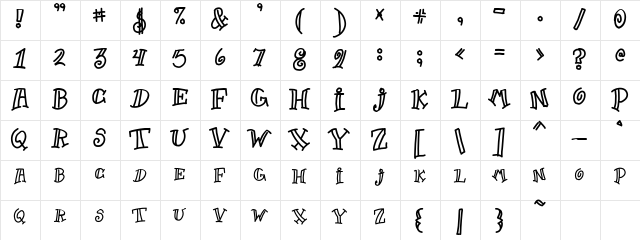
Goofball Regular Free Font
Goofball Regular
Design Context for Goofball
Goofball is a composed and adaptable typeface that performs quietly and consistently across a wide range of design contexts.
Pro Tip: Use Goofball in both headline and body roles to test its range before committing to a single application.